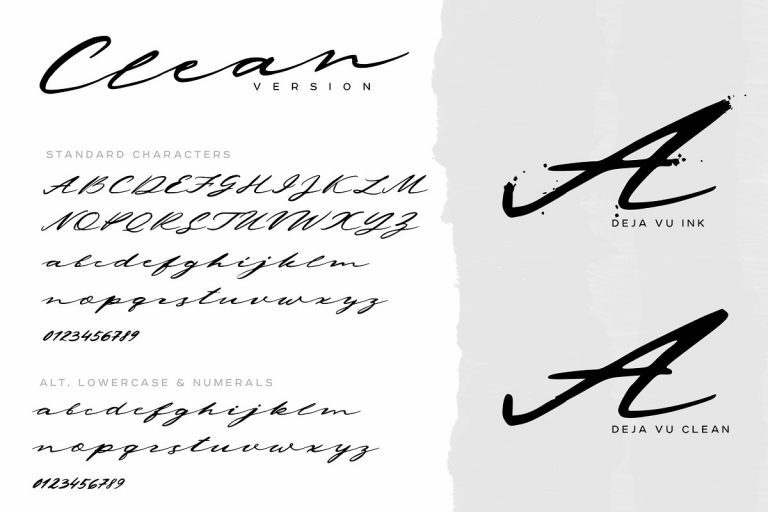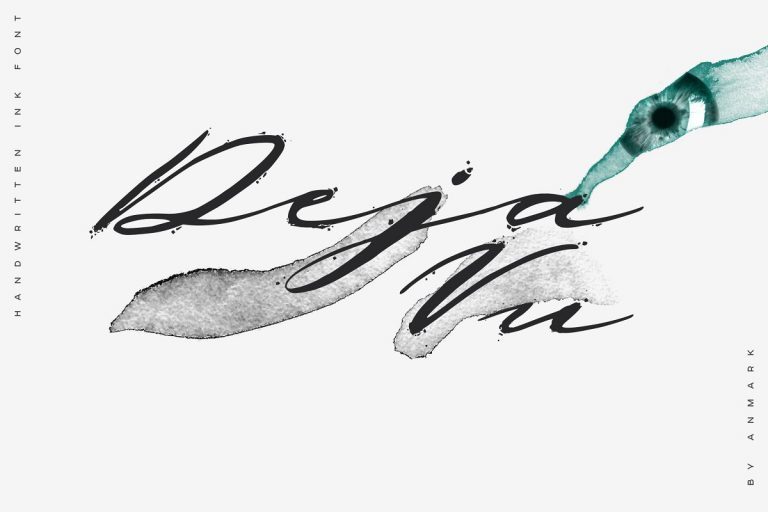
Deja Vu Handwritten Ink Font
Deja Vu Handwritten Ink Font is considered as one of the most creative typefaces. This is quite similar to the botdoh and kiramba font. In a comparable growth, ra bali font holds the all accurate reserved for it.
Style of Deja Vu Handwritten Ink Font Free